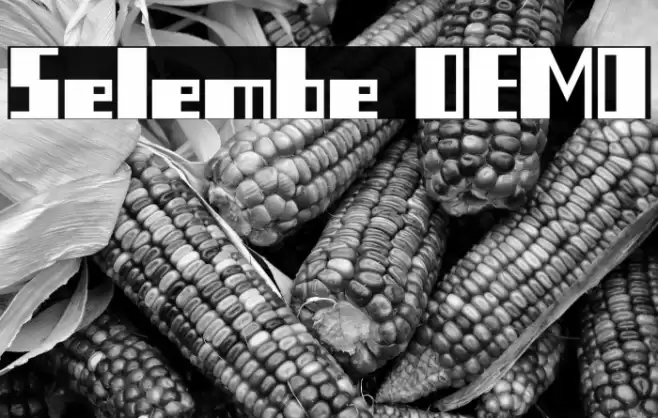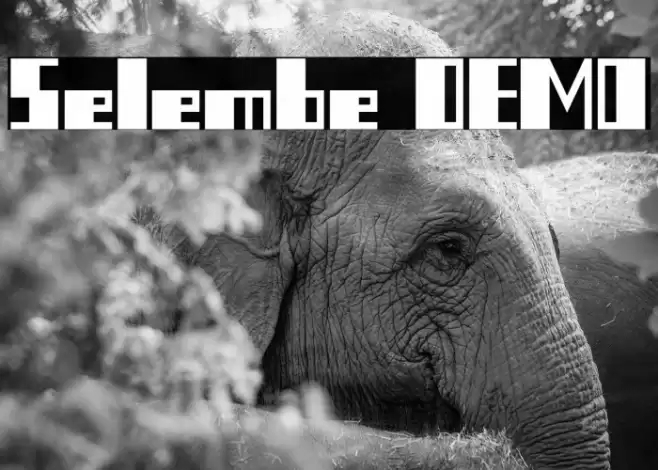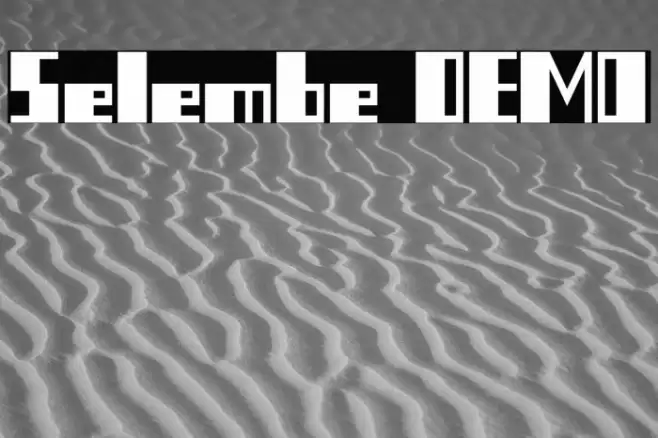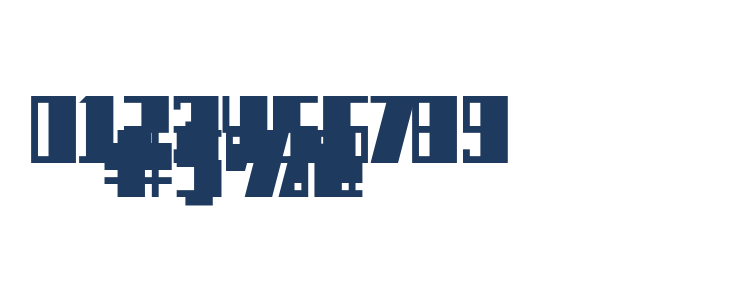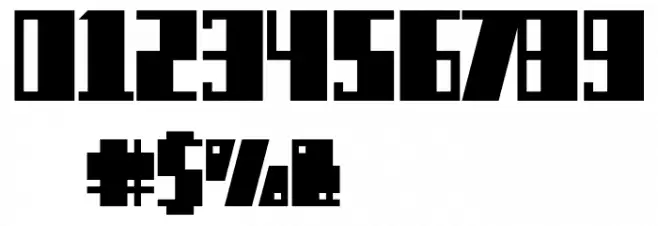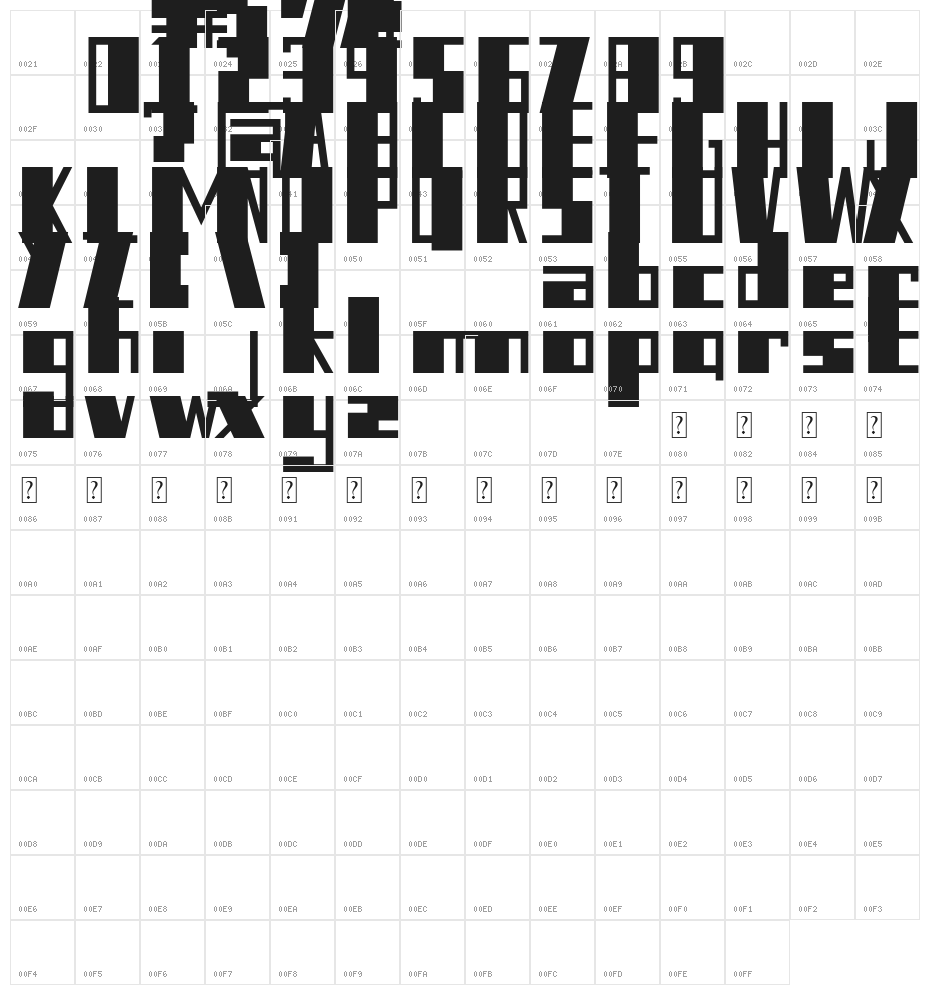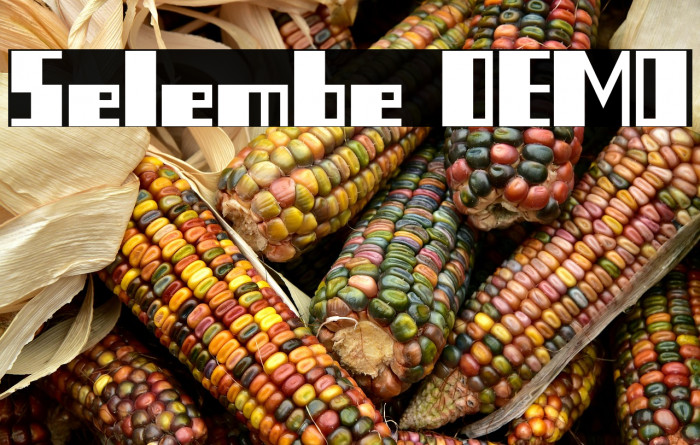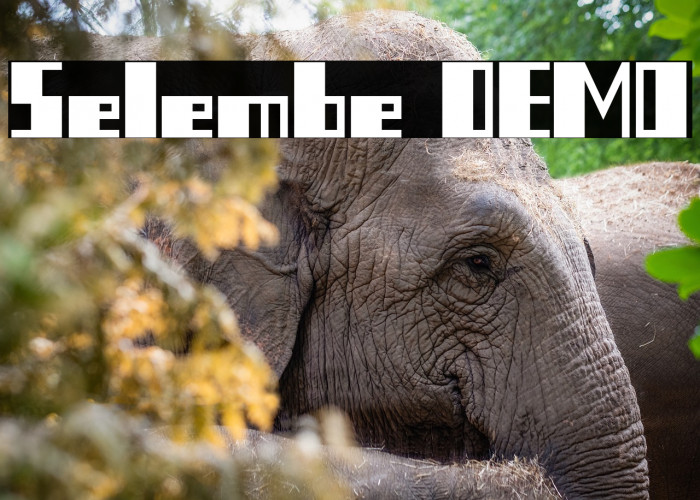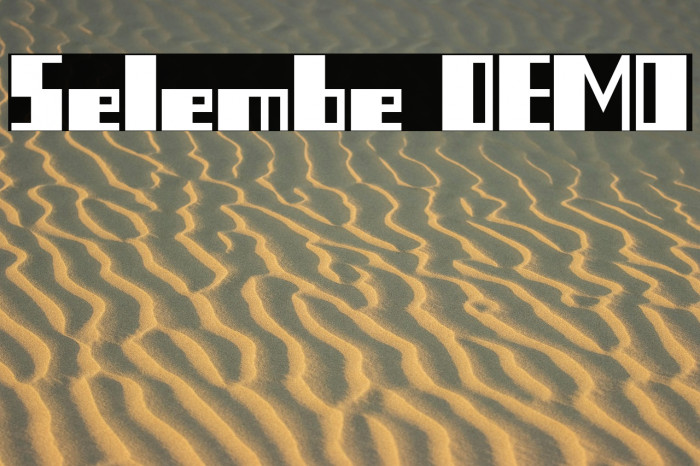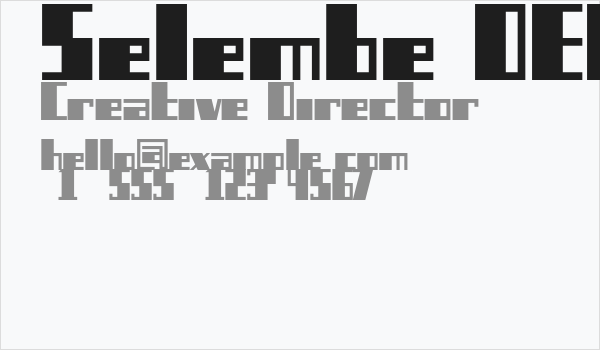
Selembe DEMO Font
Selembe DEMO Description
This font features a bold, geometric design with a strong emphasis on angular shapes and sharp edges. The uppercase letters are particularly striking, with a blocky, almost architectural feel. The lowercase letters maintain the same geometric style, creating a cohesive look across the alphabet. Numbers and special characters are similarly designed, ensuring consistency throughout. The font's boldness and unique style make it stand out, ideal for projects that require a modern and eye-catching typeface.
A bold, geometric font with angular shapes and a modern style from Regular fonts.